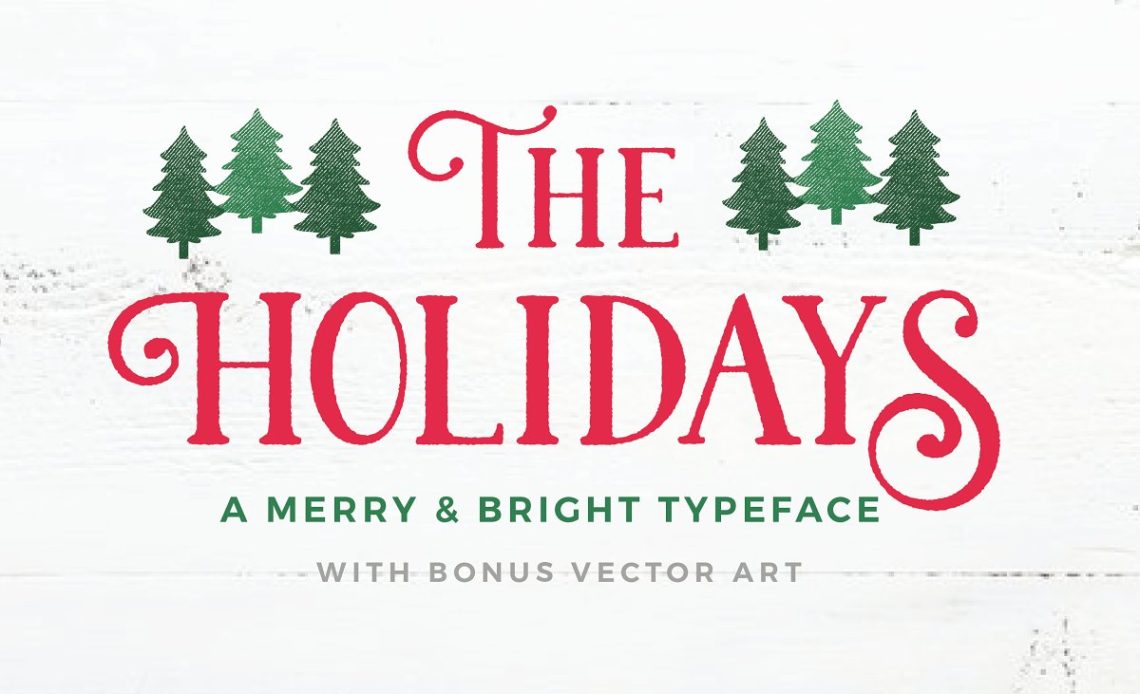
Get cozy and grab a cup of hot cocoa! The Holidays is a rustic hand-painted Christmas typeface perfect for sleigh rides and caroling.
The Holidays is suitable for Christmas cards, wedding invitations, branding, stationery, blog design, custom art, custom stamps, custom embossers, or any design purpose.